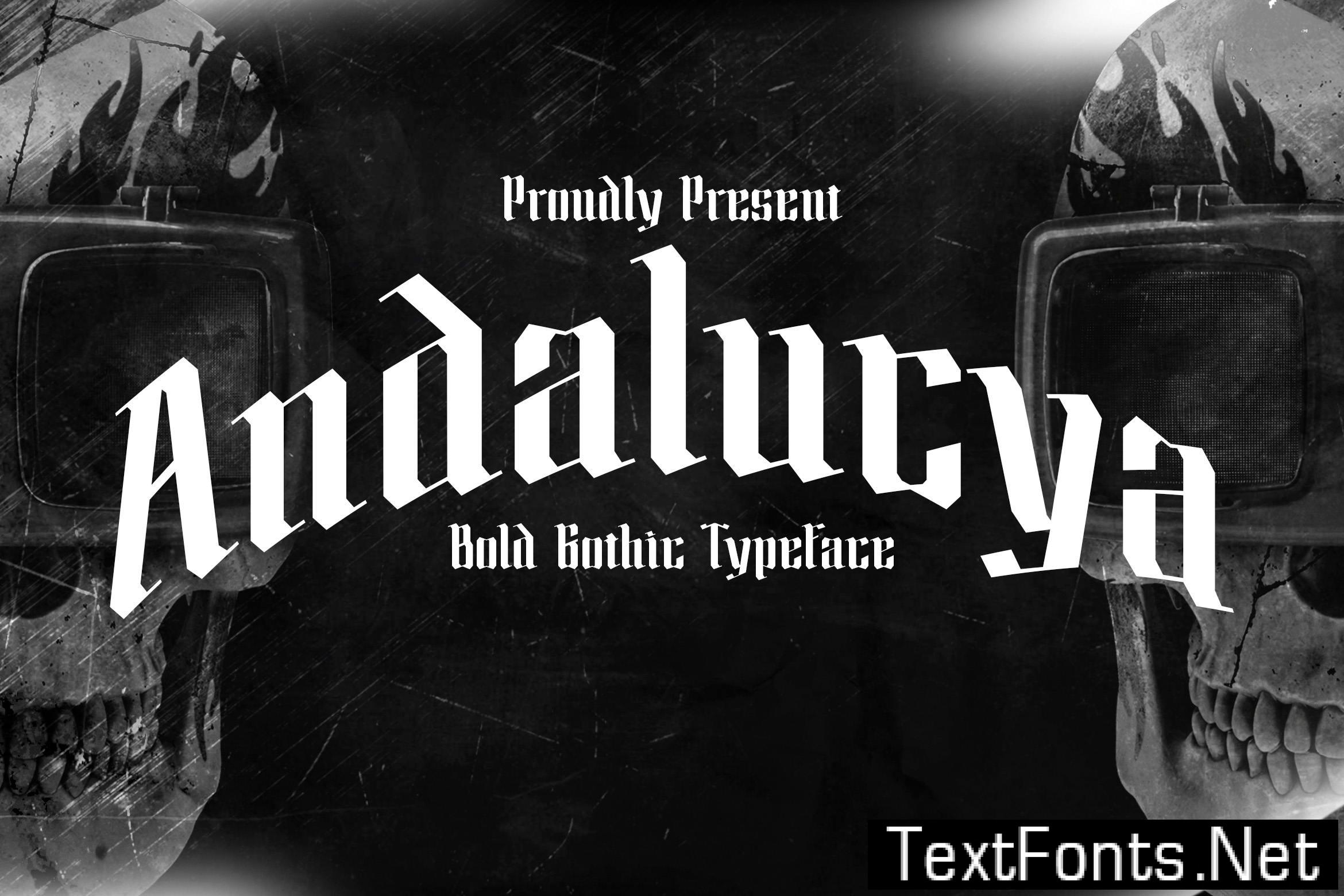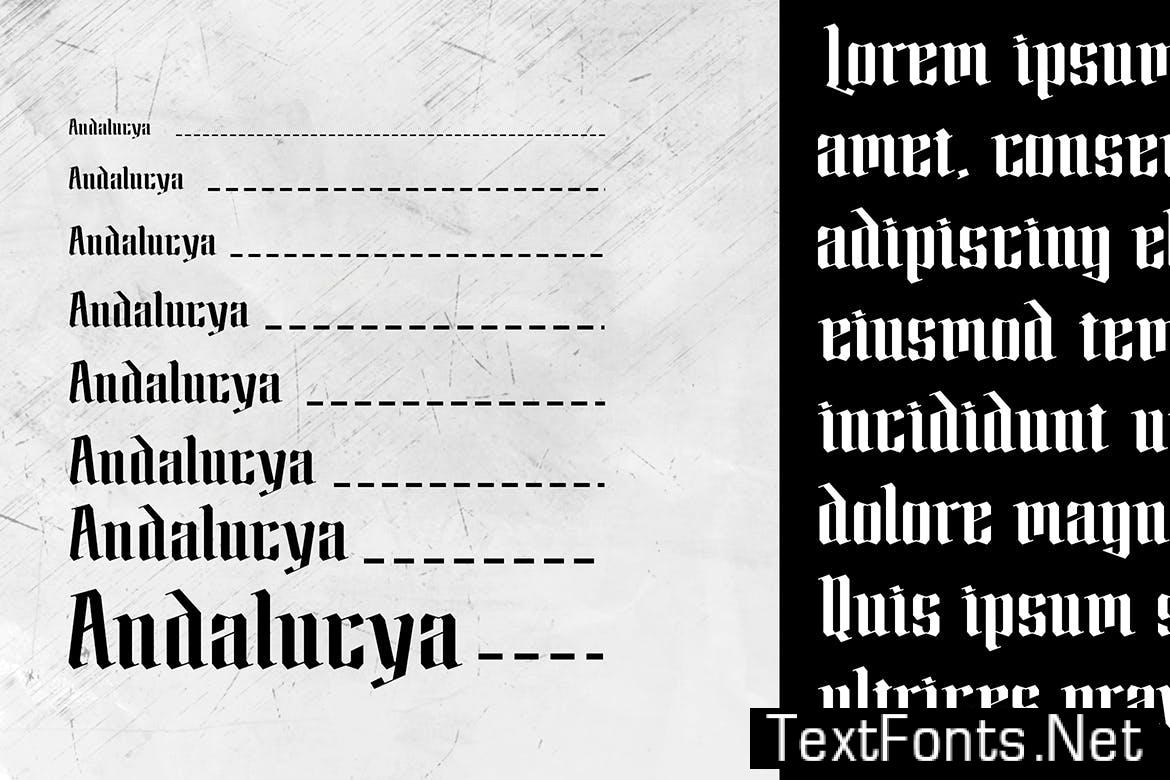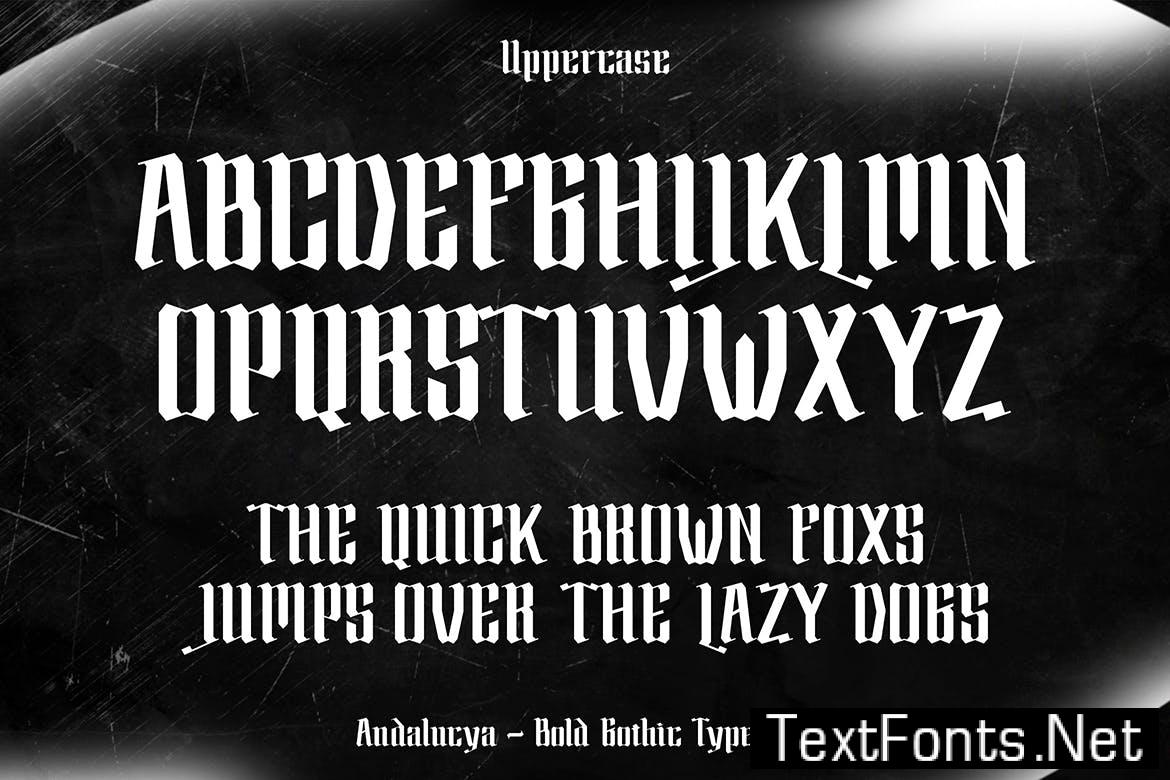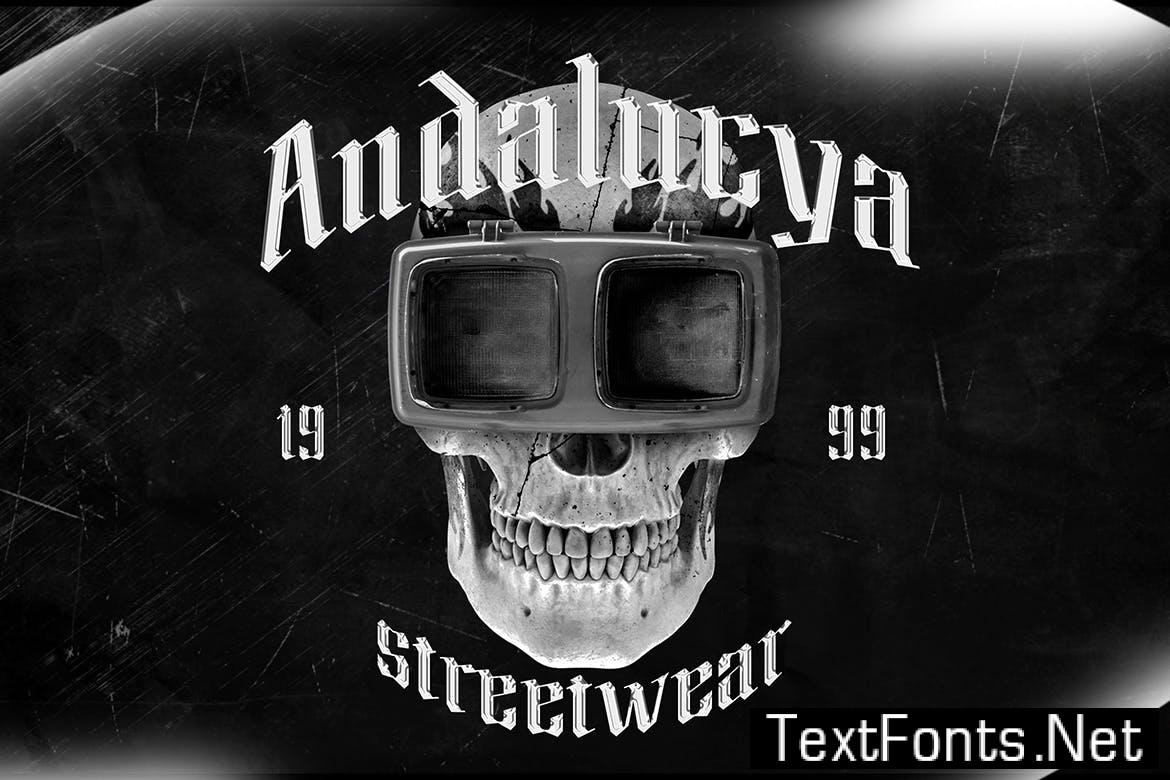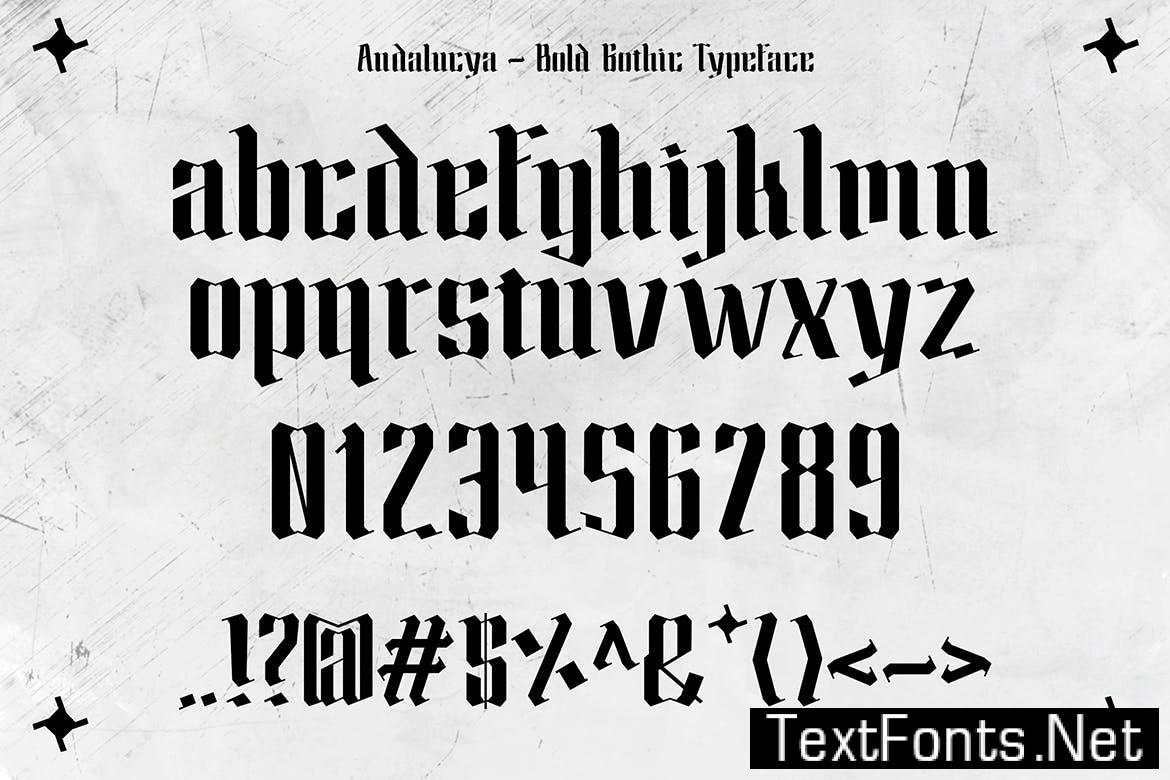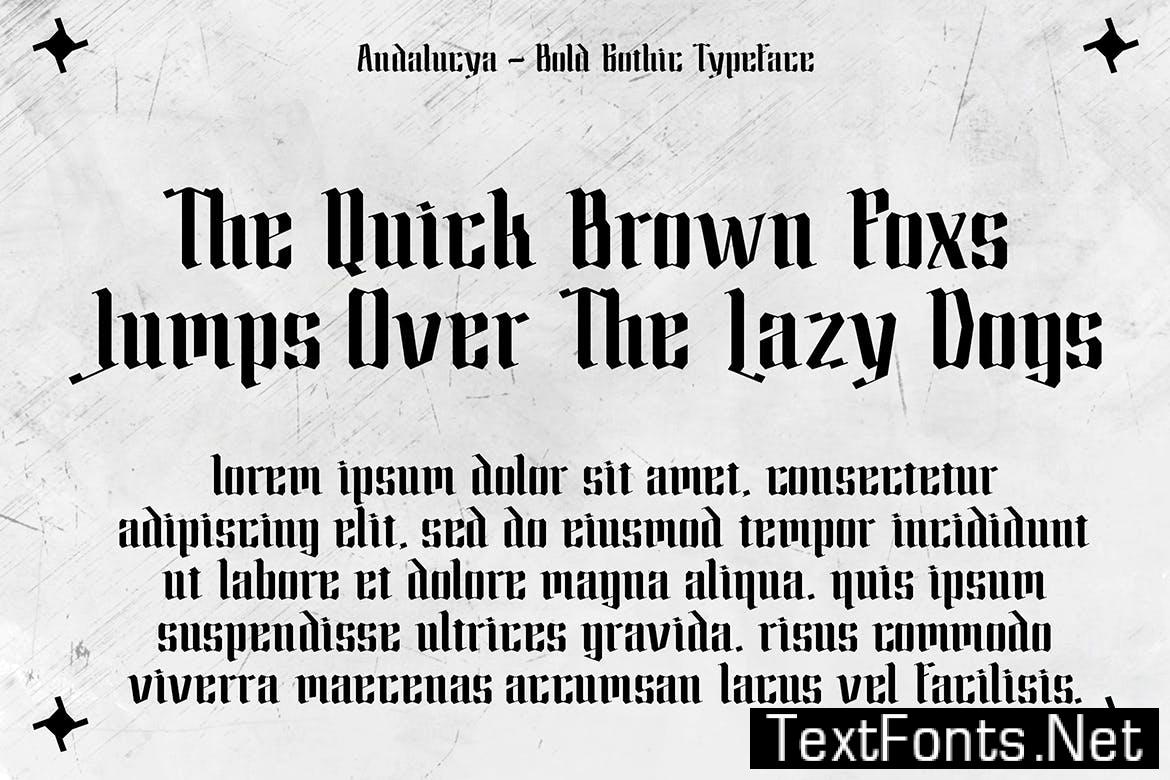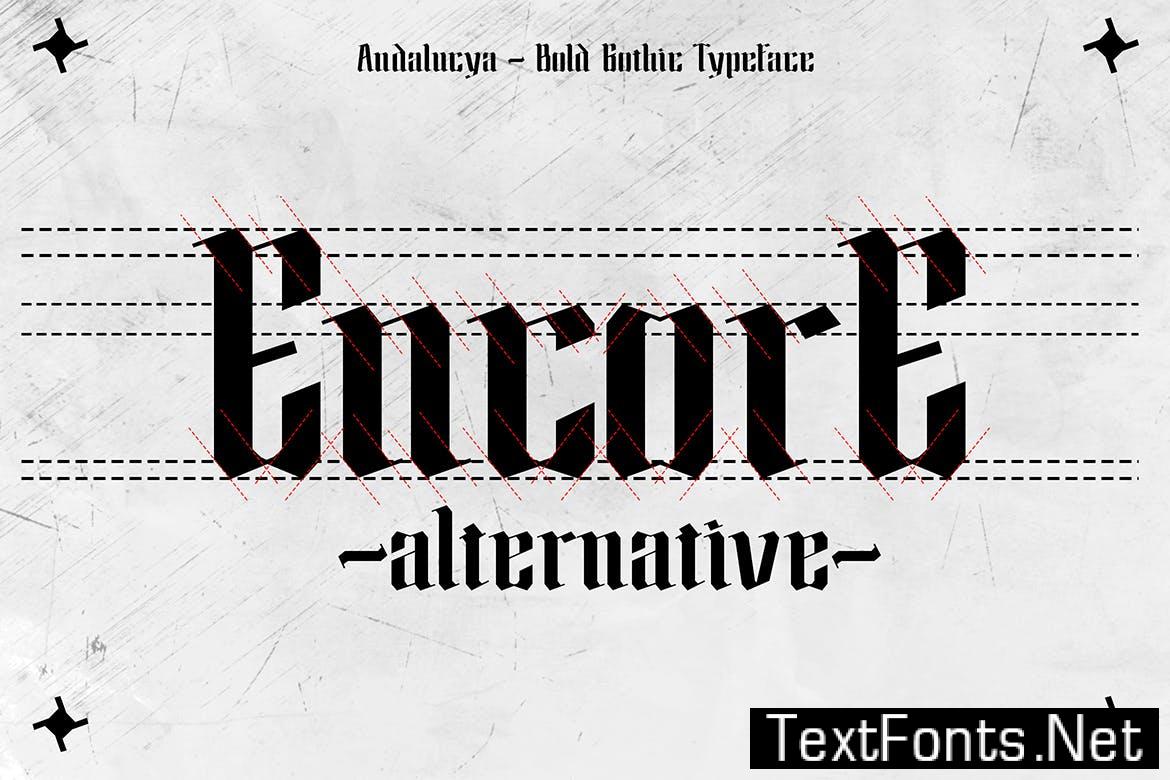
**Andalucya – Gothic Typeface**
**Andalucya** is a bold gothic font featuring classic, unique, bold, characters that seem to dance along the baseline. Add this font to your most creative ideas, and notice how it makes them stand out!